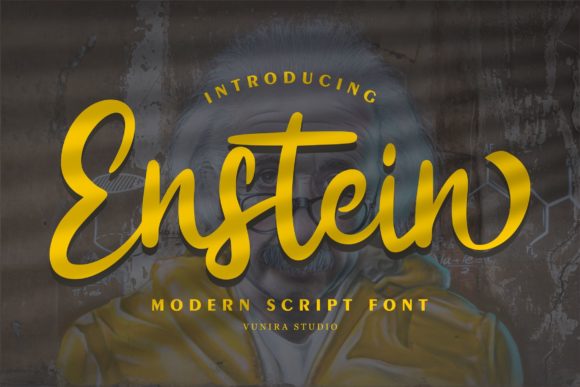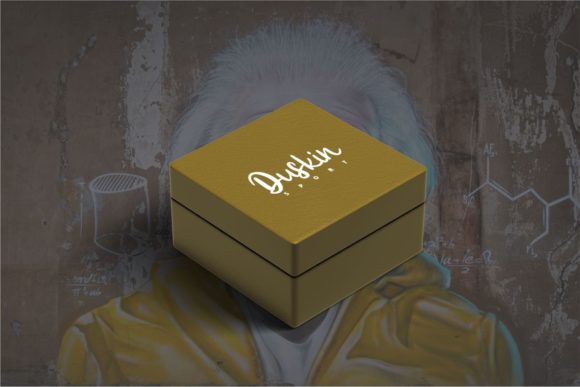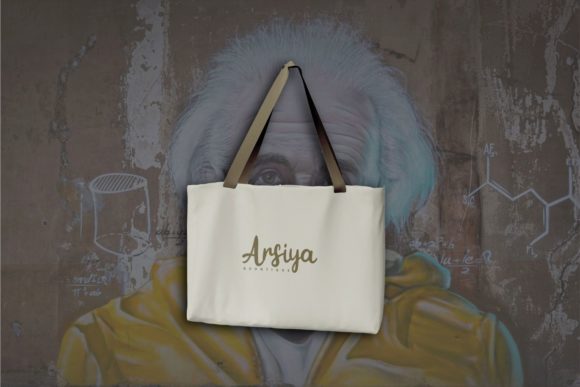
About Enstein Font
Enstein is a beautiful and flowing paint brushed script font that emanates confidence and versatility. Its stylish alternates and ligatures make this font the perfect match for any project.